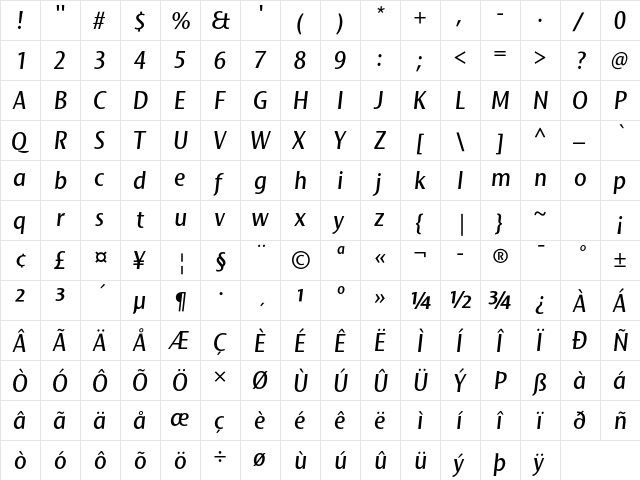
Mosquito Formal Std Italic
Design Context for Mosquito Formal Std Typeface
Mosquito Formal Std offers clean, dependable letterforms without strong stylistic allegiance, making it a practical choice for designers who need flexibility. Its italic angle brings a sense of urgency and motion to the letterforms.
Pro Tip: Try Mosquito Formal Std for annotation and caption copy alongside an upright companion — the contrast in angle creates a dynamic but ordered typographic system.